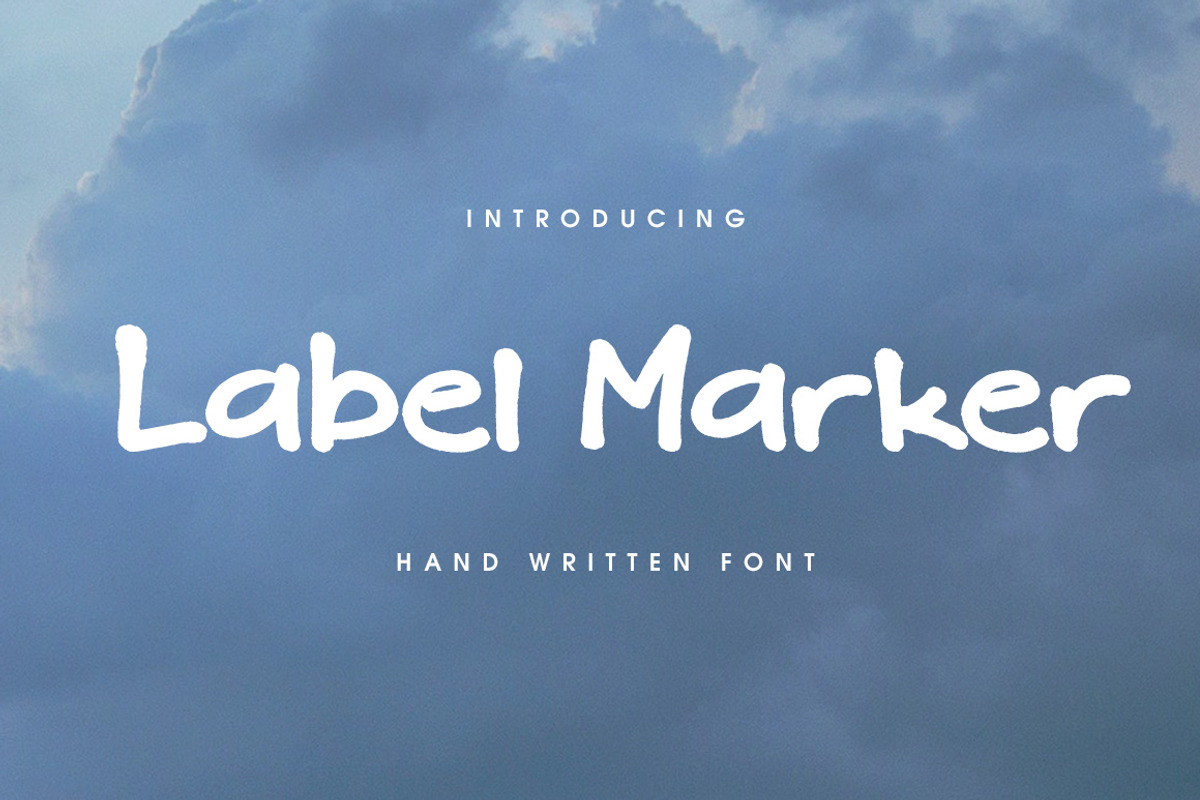
Label Marker Font
This is Label Marker. An easy to read, neat hand written marker font. This font is part of the Big Bunch of Fonts Volume 1 here
Why Label Marker Font is worth a look
Label Marker Font by Creativeqube Design fits naturally into Branding, posters, packaging, typography.